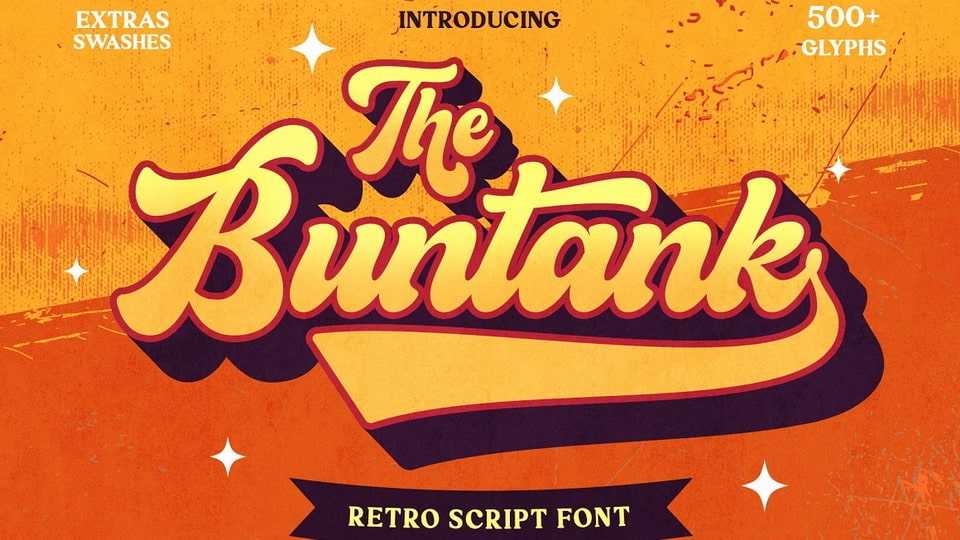
Download The Buntank font, a delightful retro display typeface carefully crafted with a bold and rounded shape. Truly inspired by retro typography that you can find on posters, logos, or signage.